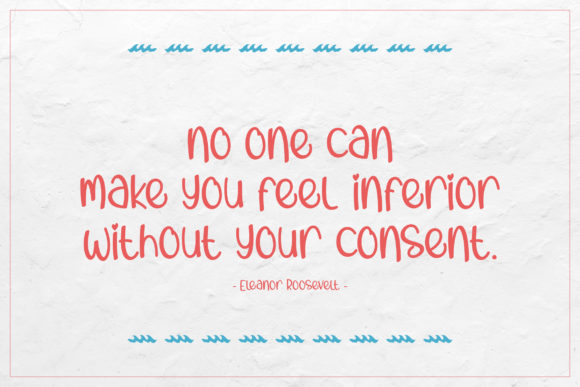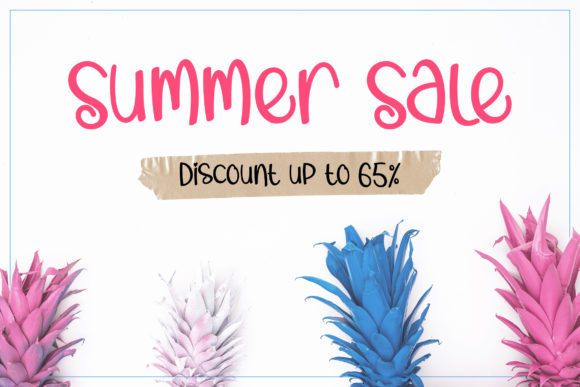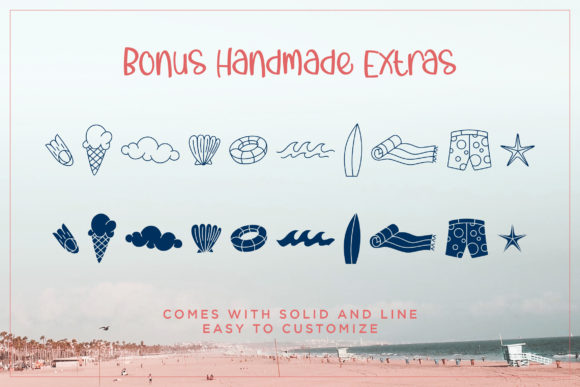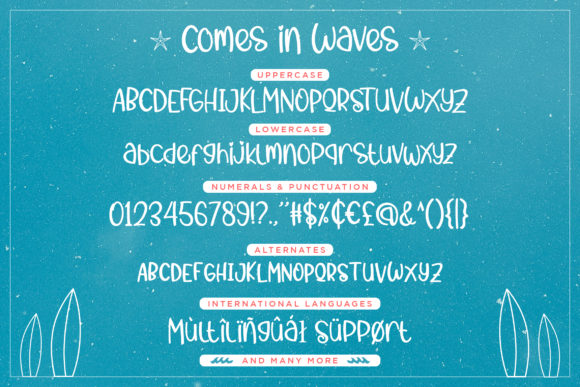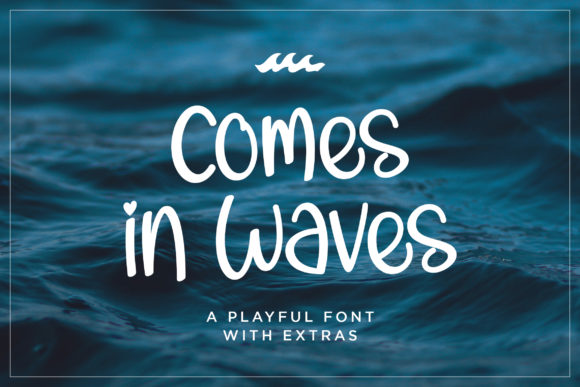
Introducing Comes in Waves Font: A Cute Handwritten Delight
Are you on the hunt for a font that exudes a sense of playfulness and authenticity? Look no further than Comes in Waves, a charming handwritten font that’s perfect for designers and crafters alike. With its unique, wavy strokes and endearing feel, this font is sure to inspire your next creative project.
The Charm of Comes in Waves
Comes in Waves is a beautifully crafted font that boasts a distinctly handwritten look. Its authentic feel makes it an excellent choice for a wide range of applications, from stationery art and social media posts to greeting cards and more. The font’s wavy strokes add a touch of whimsy and personality to any design, making it perfect for those looking to add a dash of charm to their work.
Whether you’re a professional designer or a crafter looking for a unique font to enhance your creations, Comes in Waves is an excellent choice. The font’s versatility makes it suitable for a wide range of projects, including:
- Stationery art: Create beautiful journals, planners, and notebooks with Comes in Waves as the perfect accompaniment.
- Social media posts: Add a touch of personality to your social media posts and make them stand out from the crowd.
- Greeting cards: Design eye-catching and heartfelt greeting cards for special occasions.
- Digital art: Use Comes in Waves to create stunning digital art pieces that showcase your creativity.
Key Features of Comes in Waves
So, what makes Comes in Waves such a standout font? Here are just a few of its key features:
- Handwritten with love: Comes in Waves is a carefully crafted handwritten font that exudes a sense of authenticity.
- Wavy strokes: The font’s unique wavy strokes add a touch of whimsy and personality to any design.
- Easy to read: Despite its playful feel, Comes in Waves is surprisingly easy to read, making it perfect for body text and headings.
- Versatile: Use Comes in Waves for a wide range of projects, from digital art to print materials.
Tips for Using Comes in Waves
To get the most out of Comes in Waves, here are a few tips to keep in mind:
- Experiment with colors: Comes in Waves looks great in a variety of colors, so don’t be afraid to experiment and find the perfect hue for your design.
- Mix and match: Combine Comes in Waves with other fonts to create a unique and eye-catching design.
- Play with sizes: Use Comes in Waves in a range of sizes to add visual interest to your design.
- Add embellishments: Consider adding embellishments, such as illustrations or graphics, to enhance your design and make it truly special.
Comes in Waves is a delightful handwritten font that’s sure to inspire your next creative project. With its unique wavy strokes and authentic feel, this font is perfect for designers and crafters looking to add a touch of charm to their work. Whether you’re creating stationery art, social media posts, or greeting cards, Comes in Waves is an excellent choice. So why not give it a try and see what beautiful creations you can come up with?